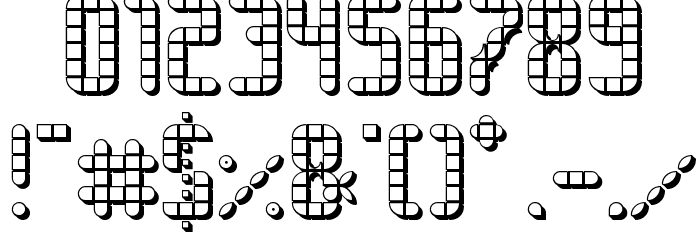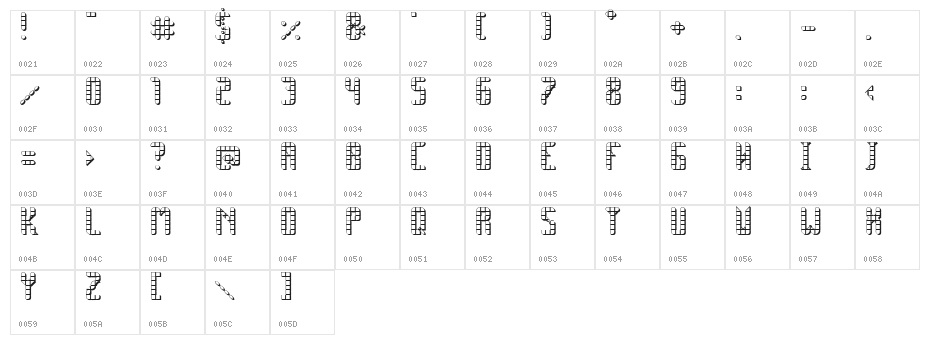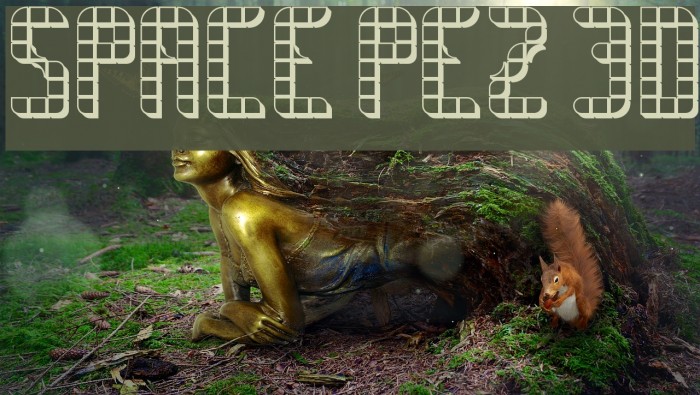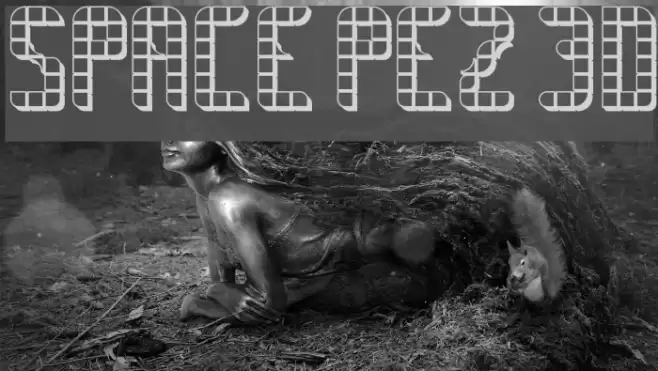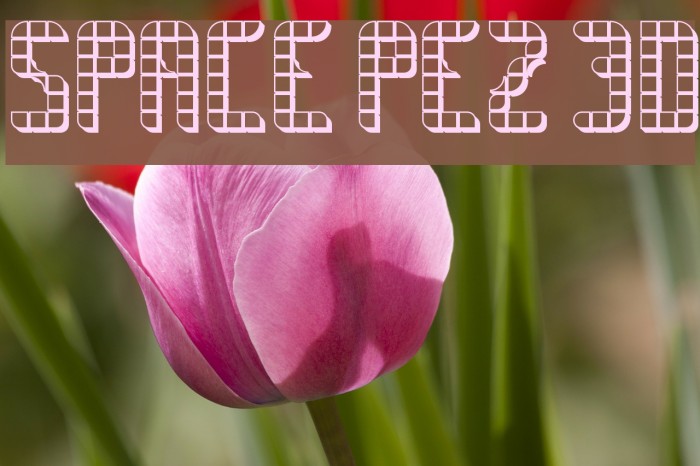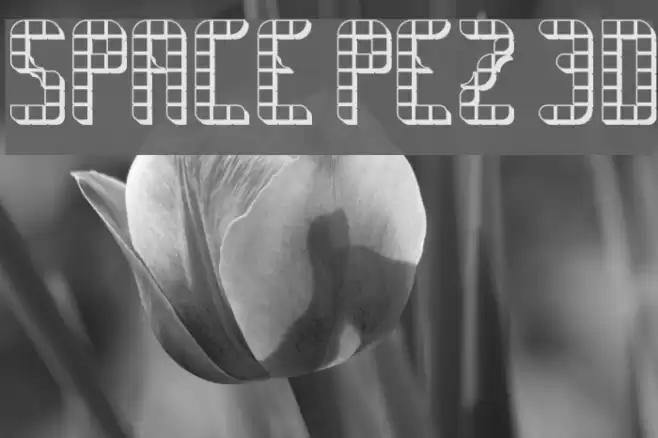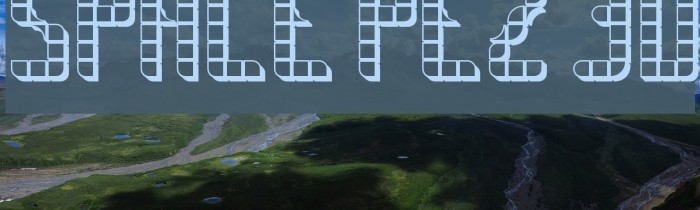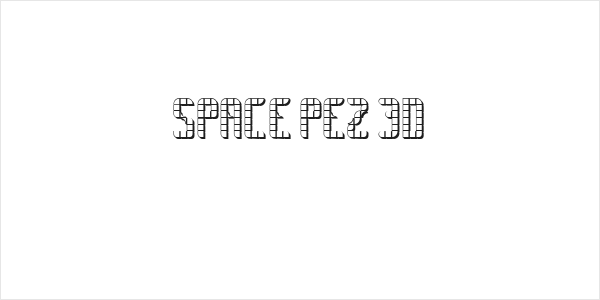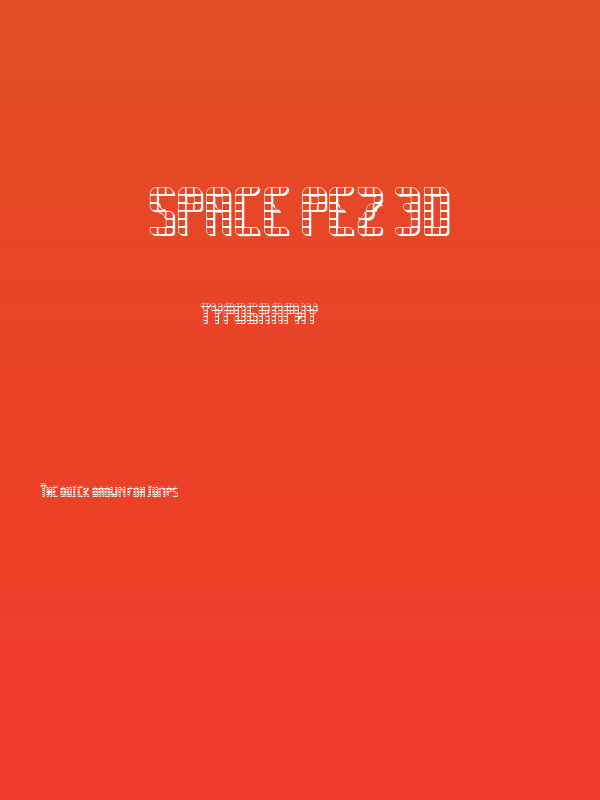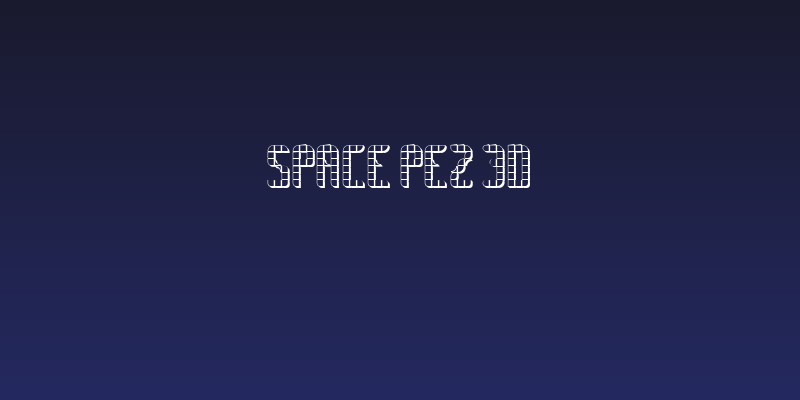
SPACE PEZ 3D Font
SPACE PEZ 3D Description
This font features a unique 3D grid-like design, where each character is composed of a series of interconnected lines and squares, creating a futuristic and digital appearance. The uppercase and lowercase letters maintain a consistent style, with rounded edges and a geometric structure. The numbers and special characters follow the same design principles, ensuring uniformity across the entire set. This font's distinct style makes it stand out, offering a modern and technological feel that is both eye-catching and innovative.